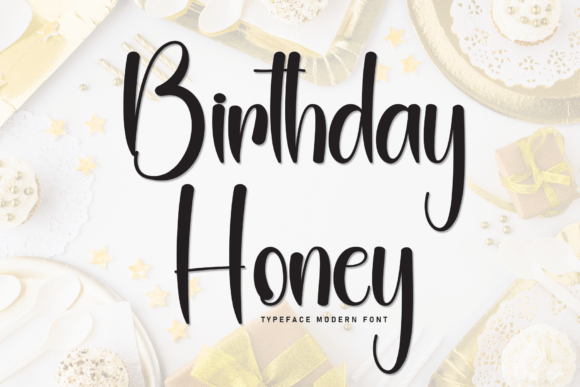
Introducing Birthday Honey Font: The Sweetest Addition to Your Design Toolkit
Have you ever been in the middle of a design project, and suddenly, you’re stuck on finding the perfect font? I recall a recent experience where I was working on a wedding invitation design, and my client specifically asked for a font that was “whimsical, yet elegant.” After scouring through numerous font libraries, I stumbled upon the charming Birthday Honey Font. It was love at first sight! ✨
A Personal Review: What I Love About Birthday Honey Font
Here’s what makes Birthday Honey Font a delightful addition to your design arsenal:
- ✅ Sweet and Friendly Vibes: This font exudes warmth and approachability, making it perfect for designs that require a personal touch.
- ✨ Whimsical yet Legible: The handwritten script is playful, yet easy to read, making it suitable for a wide range of design projects.
- 🎉 Versatile and Adaptable: Whether you’re designing wedding invitations, greeting cards, or social media graphics, Birthday Honey Font fits right in.
While Birthday Honey Font is a delightful addition to any design project, there are a few minor quirks to be aware of:
- ⚠️ Limited Character Set: As with any font, there might be limitations to the character set, so be sure to check the font’s capabilities before committing to a project.
- 🤔 Kerning Adjustments: Some users might need to make manual kerning adjustments to ensure optimal letter spacing.
- Experiment with OpenType features, such as glyphs and stylistic alternates, to add visual interest to your design.
The Designer’s Inspiration Behind Birthday Honey Font
The creator of Birthday Honey Font drew inspiration from traditional handwritten scripts, infusing them with a modern twist. The result is a font that feels both nostalgic and fresh. According to the designer, “The goal was to create a font that would bring a smile to the user’s face, while also providing a versatile tool for various design projects.” 🌟
| Is Birthday Honey Font suitable for body text? | While it’s primarily designed for display text, Birthday Honey Font can be used for short paragraphs of body text, but it’s recommended to use a clear, legible font for longer blocks of text. |